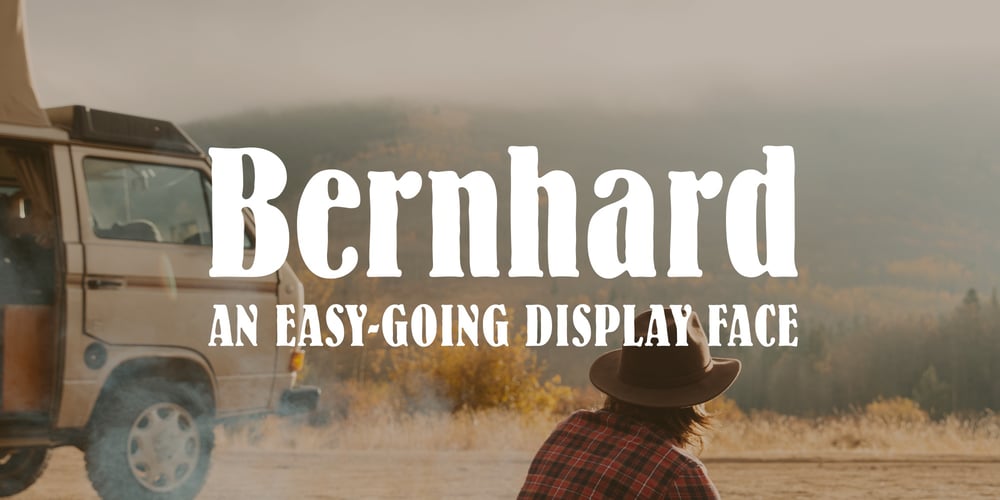
Bernhard
Bernhard font
Bernhard Font Family was designed by Lucian Bernhard and published by Linotype. Bernhard contains 1 styles and family package options. The German typeface artist Lucian Bernhard designed Bernhard Antiqua as the first of his many text typefaces. The first weights were produced in 1912 by the foundry Flinsch in Frankfurt am Main. Further weights followed in the 1920s, produced by the Bauersche foundry, which had acquired Flinsch in the meantime. Bernhard font is an alphabet with a marked historical influence. It brings the viewer back to the early 20th century, when the bold forms of this typeface graced advertising displays and posters. Distinguishing characteristics of this typeface are the cross of the capital W and the rounding of the capital R. Linotype’s Bernhard condensed bold, with its narrow, robust forms, is best for headlines in medium and larger point sizes.